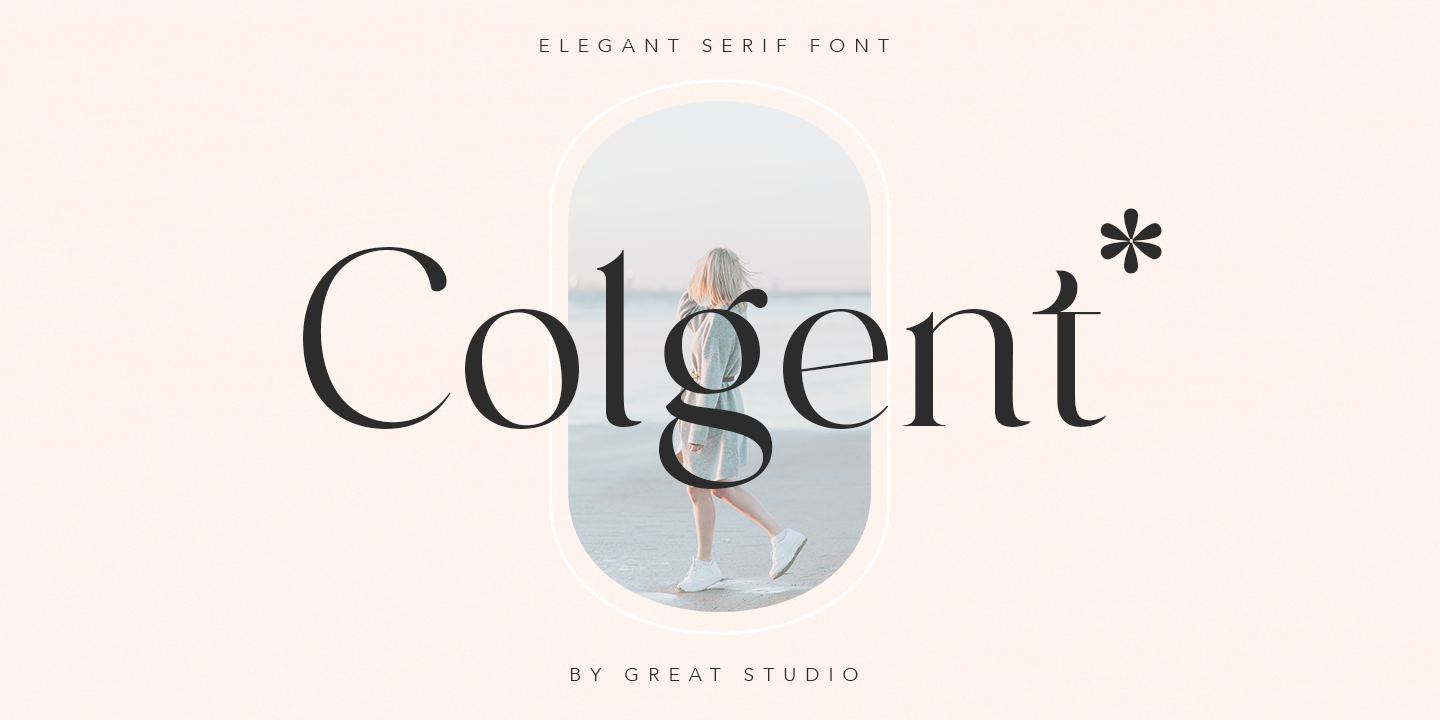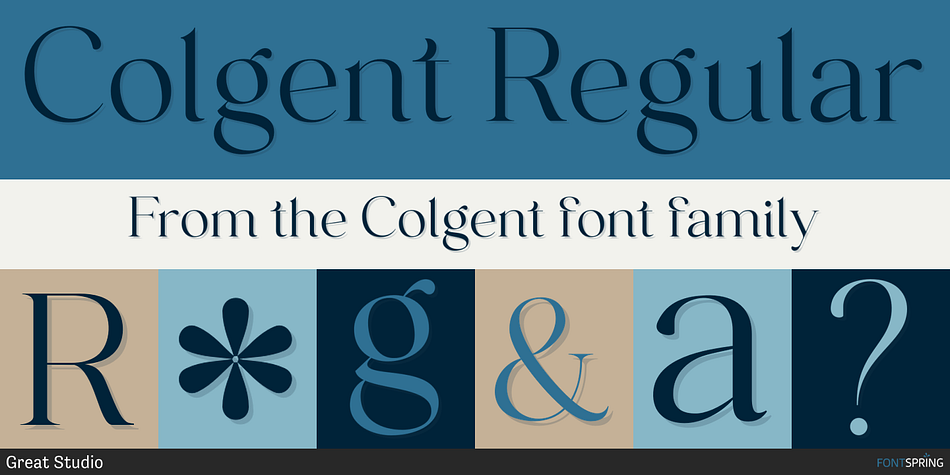
Colgent Regular
Designed by Mulkan Nazir, Colgent is a display serif font family. This typeface has two styles and was published by Great Studio.
Colgent is a modern serif font with a unique style, a light and high contrast font perfect for feminine logo signs, fashion heads & editorial designs. Colgent is perfect for branding projects, Logo design, Clothing Branding, packaging, magazine headings, advertising, T-shirts, postcards and much more.
Colgent is also included full set of:
uppercase and lowercase letters
multilingual characters
numerals
punctuation